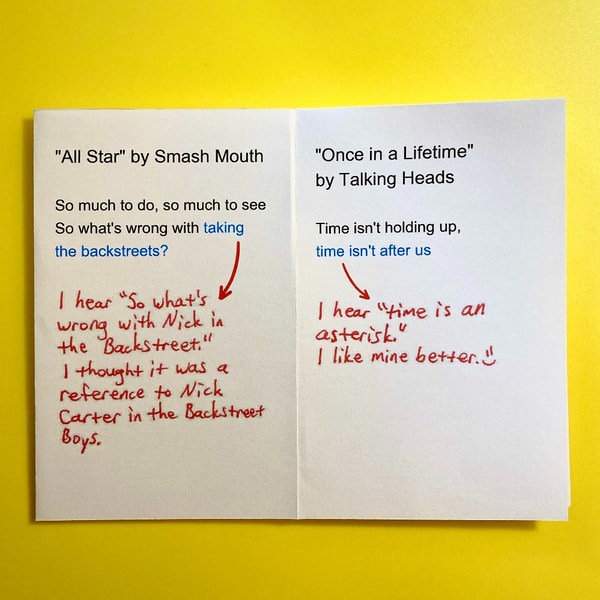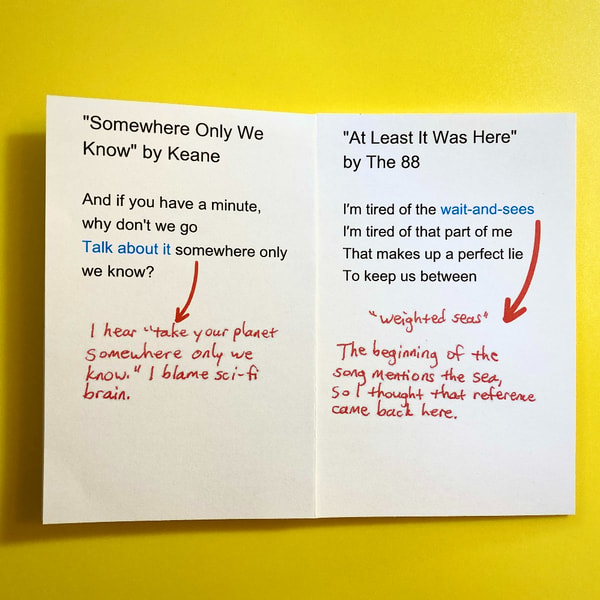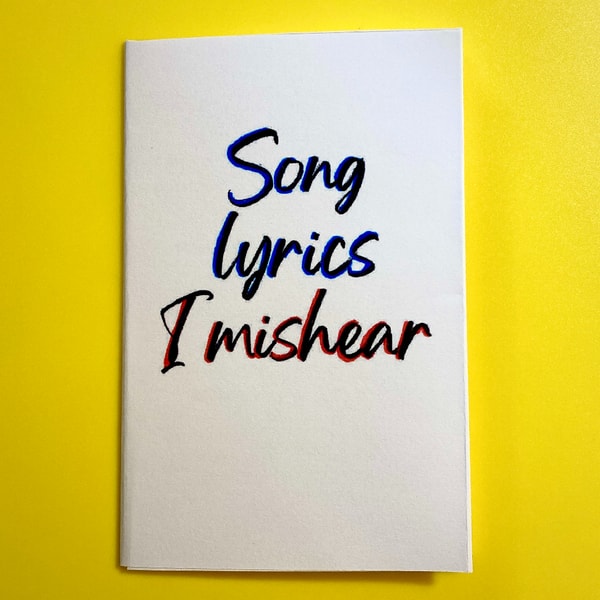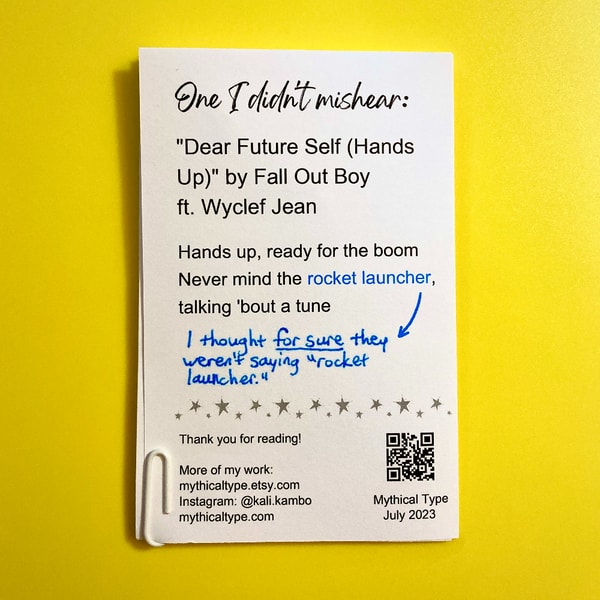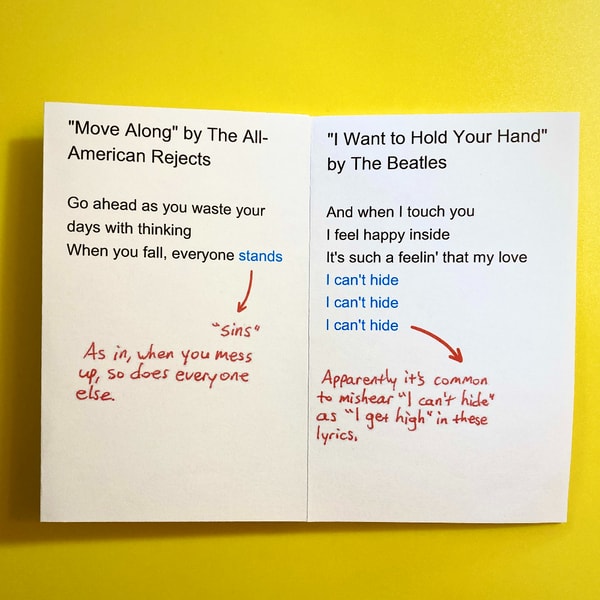
Song lyrics I mishear
“Song lyrics I mishear” is a mini zine that lists lyrics where I hear the wrong words. Each page is about one song and includes the actual lyrics along with what I hear instead.
I wanted the interior pages to be a mix of typed text (the actual song lyrics) and handwritten notes (the words I hear). This way, the pages look like they’re annotated.